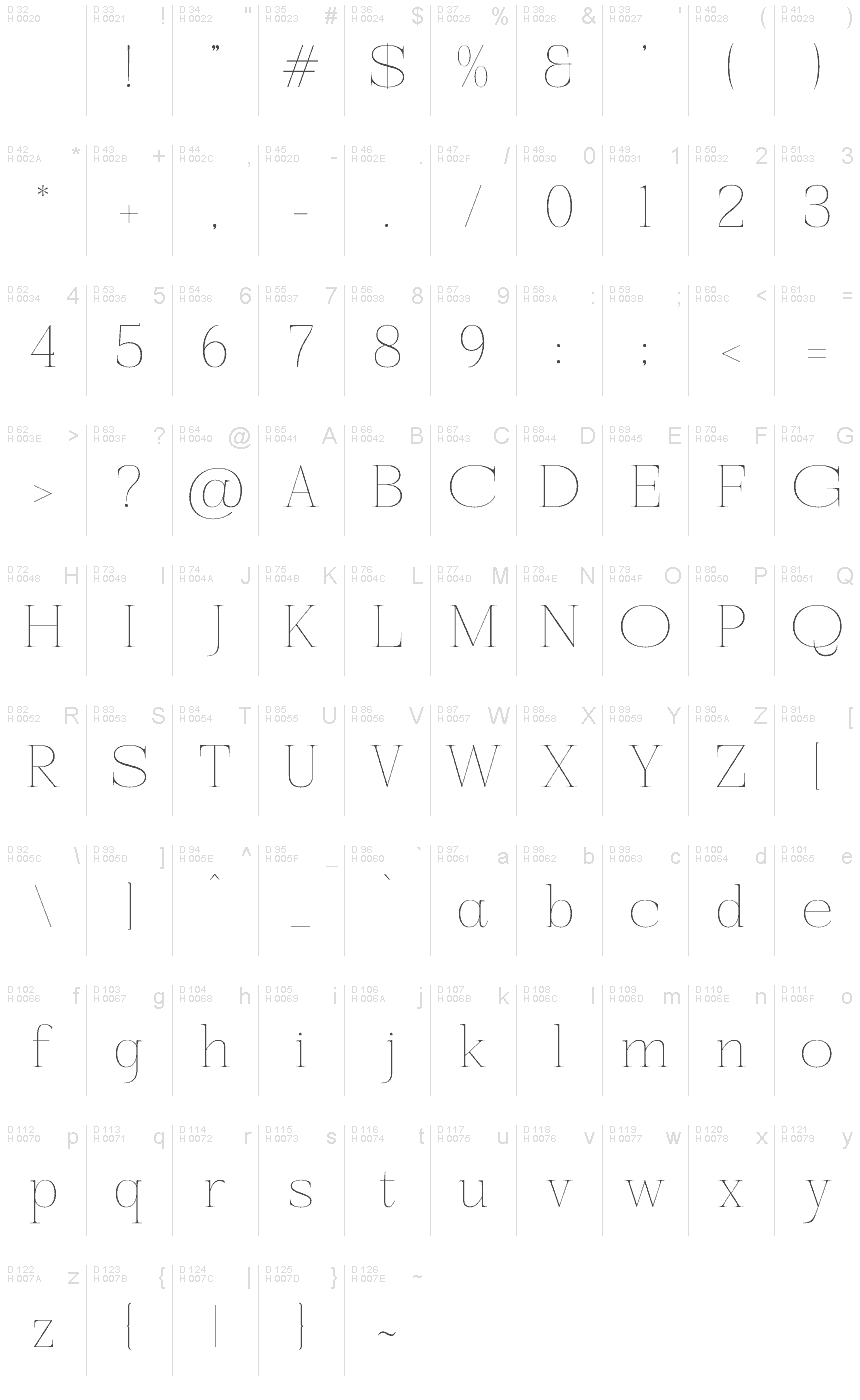
Moenalica
Moenalica font is a modern light serif that combines elegance with sophistication, presented initially by Storytype Studio. It has the right dose of geometric influences and simplicity to create an incredibly minimalist look. The beautiful form will improve viewers’ experience as it serves text that looks pretty and easy on the eyes.
The typeface is made for usage in packaging design, posters, magazines, book covers, invitation cards, quotes or art posters. However, its success with branding and advertising applications takes it to new heights in projects like social media posts or website designs.